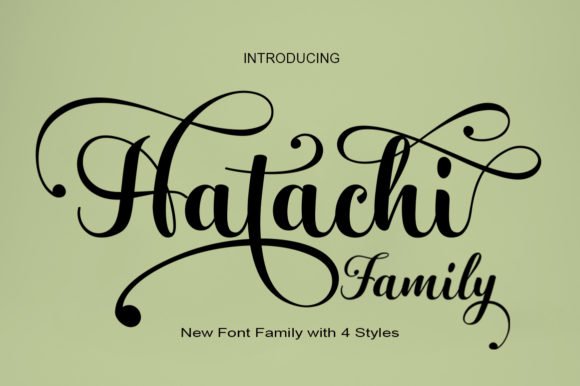
The Perfect Blend of Elegance and Playfulness: Hatachi Family Font
Have you ever stumbled upon a font that makes you feel like you’re holding a brush stroke of magic? For designers, finding the perfect font can be a game-changer. It’s that moment when the words on a page come alive, and the message shines through. For me, that moment happened when I discovered the Hatachi Family Font.
This elegant script family is a masterpiece of handwritten style and beautiful calligraphy. With its decorative characters and dancing linage, the Hatachi Family Font adds a playful touch while maintaining its sophistication. Whether you’re designing invitations, greeting cards, branding materials, or business cards, this font is a valuable asset in your toolkit.
Hatachi Family Font Key Features
- Font Family: Hatachi Family Font is a collection of 3 fonts – Hatachi, Hatachi Sans, and Hatachi Script.
- Unique Characteristics: The font features a unique, playful, and energetic design with a mix of traditional and modern elements, making it suitable for various design applications.
Hatachi Family Font Review
I’ve had the chance to play around with the Hatachi Family Font, and I must say it’s a unique and quirky addition to any design project. ✨ The font’s eclectic mix of Japanese and Western influences works surprisingly well together, creating a visually interesting and eclectic feel.
One of the standout features of the Hatachi Family Font is its wide range of weights and styles, making it suitable for everything from body text to display headings. ✨ The font also includes a range of international characters, including Japanese kanji and katakana, which is a big plus for designers working with multilingual content.
However, there are some limitations to the Hatachi Family Font that should be noted. ⚠️ For one, the font’s bold weights can sometimes appear a bit clumsy or over-the-top, which may not be suitable for every design project. Additionally, the font’s irregularities can make it difficult to read at very small sizes.
Pros and Cons:
- Unique blend of Japanese and Western influences ✨
- Wide range of weights and styles ✨
- Includes international characters, including Japanese kanji and katakana
- May appear clumsy or over-the-top in bold weights ⚠️
- Difficult to read at very small sizes ⚠️
Overall, the Hatachi Family Font is a fun and interesting addition to any design project, but it may not be suitable for every use case. With some careful consideration and experimentation, however, it could be a great choice for designers looking to add a bit of personality to their work.
Hatachi Family Font Practical Application Guide
The Hatachi Family Font is suitable for various design projects, including:
– Marketing materials (brochures, flyers, etc.)
– Digital products (websites, apps, etc.)
– Print materials (business cards, posters, etc.)